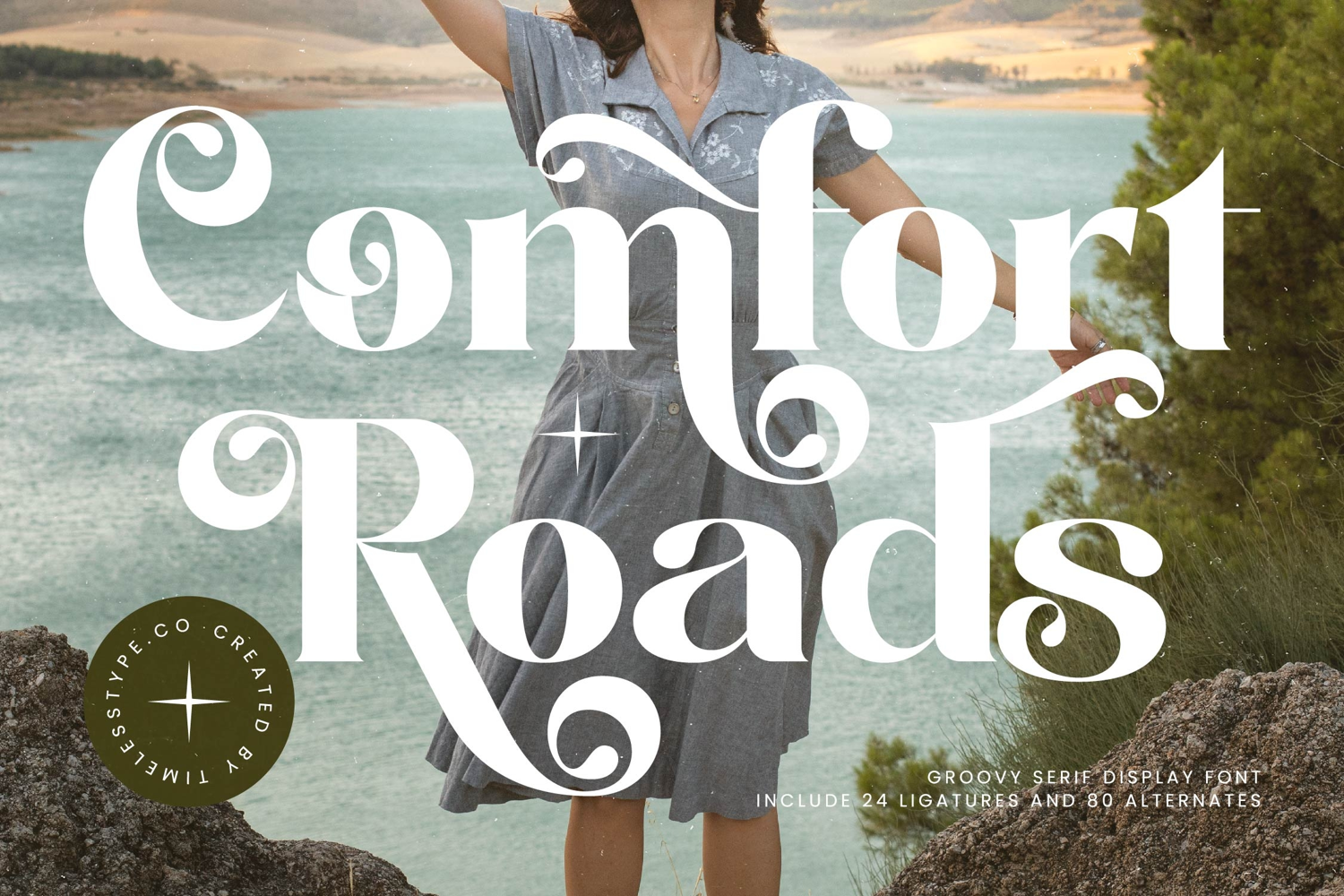
Comfort Roads - Groovy Serif Display Font
Comfort Roads is a groovy serif display font that blends retro charm with bold, decorative elegance. Its chunky letterforms, sweeping curves, and ornamental serifs make it a typeface full of personality, perfectly suited for designs that need both impact and character. With 24 ligatures and 80 alternates, Comfort Roads provides extensive creative options, allowing designers to build expressive and unique typographic compositions that stand out in any medium.
This font is designed to excel in headline typography, where its bold curves and stylish alternates make an immediate impression on posters, banners, and editorial spreads. In branding and logo design, Comfort Roads conveys confidence and creativity, making it a great choice for lifestyle brands, fashion labels, artisanal products, and businesses that want a playful yet sophisticated identity. Its decorative qualities also make it excellent for packaging design, especially for food, beverages, cosmetics, and handcrafted goods, where typography plays a vital role in visual storytelling.
Comfort Roads thrives in advertising campaigns, event promotions, and social media graphics, where its alternates and ligatures inject variety and flair into every message. For editorial design, merchandise, and lifestyle projects, the font adds warmth and individuality, turning typography into a focal point of the overall aesthetic.
With multilingual support, Comfort Roads adapts easily to international projects, broadening its usability for global creatives.
Ultimately, Comfort Roads is more than a display serif—it is a statement of groovy elegance and bold creativity. Whether used in headlines, branding, packaging, or advertising, it ensures every project radiates retro charm, modern flair, and unforgettable style.